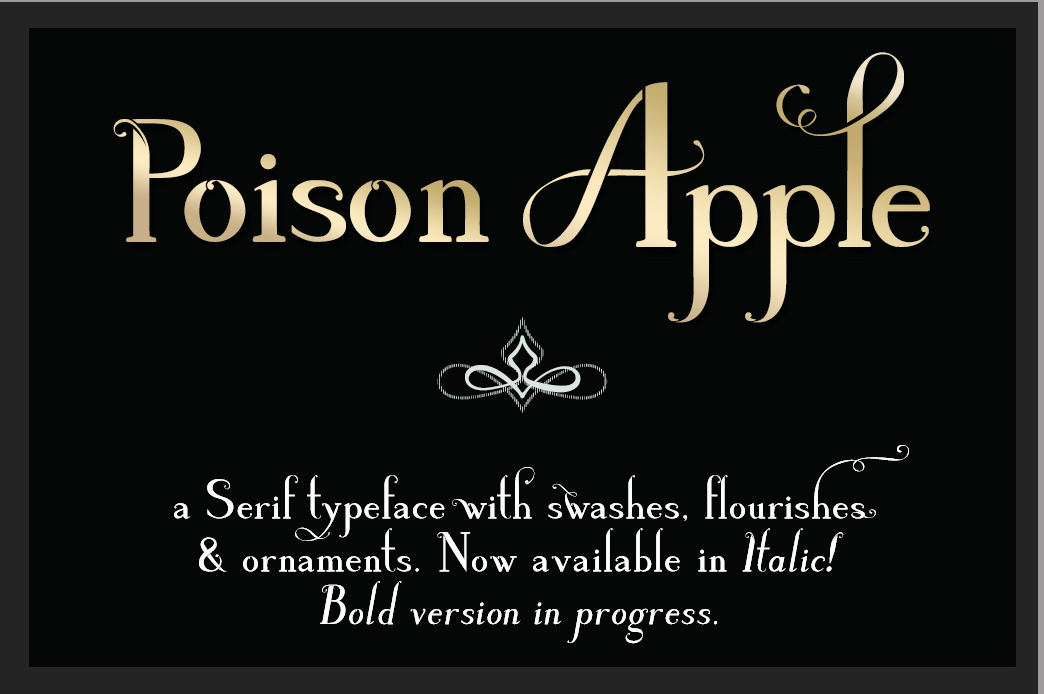
Serifs, swashes & stylistic alternates (optional), flourishes, ornaments (frames,florets & fleurons) come together in this new font family, Poison Apple, available in Regular, Italic & Bold. There are currently 2 sets of ornaments, & each set features nearly 100 glyphs, & now there's Poison Apple "Words".
Poison Apple Words has just been updated again, I tried to make the "underline" more consistent in terms of angle & shape. Featured are "and", "to", "from", "by", "of" (& a bunch more), just some words that I thought might look nice on invites. Words will work with any program that automatically converts characters into ligatures, such as Photoshop, (sorry "Words" doesn't show below). If you ever forget which words are included, just type "words" (with no quotes) in the program. The feature works like ligatures, & capitalized versions are also available (so there's "for" and "For", "By" and "by" and so on).
Some of Poison Apple's characters come with 2 stylistic alternates, & can be accessed either via the "Stylistic Alternates" button in Photoshop (Window Character), or "Swash". In this latest update, I also added a stylistic Alternate for the ampersand (&) glyph. Any questions or issues with the font, please email me: mxlogocom@gmail.com. This is it for now, thank you so much for the support :)